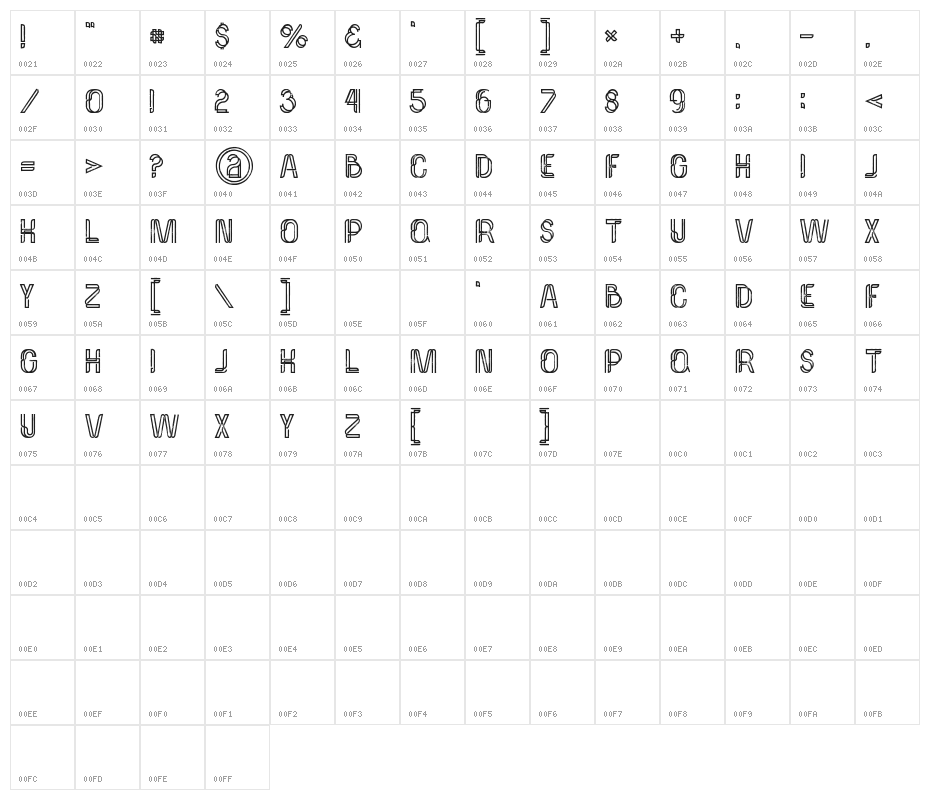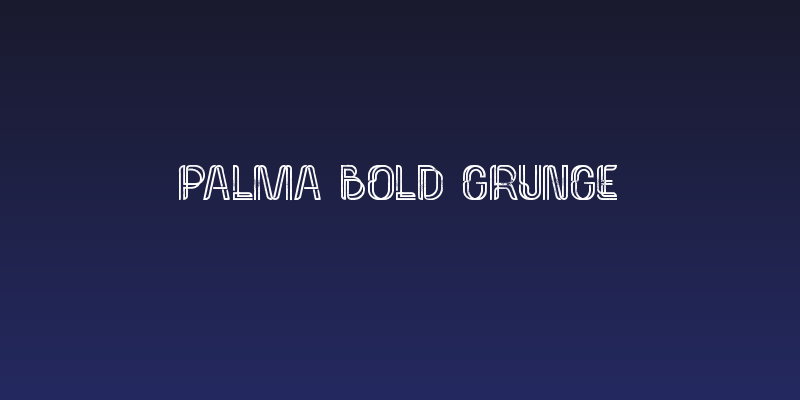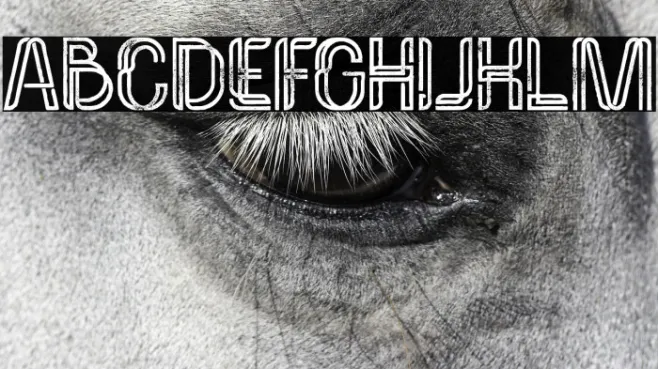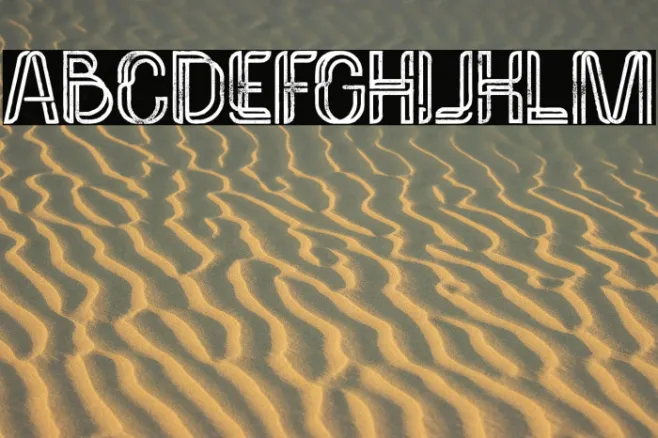
Palma Bold Grunge Font
Palma Bold Grunge Description
This font features a bold, grunge style with a distressed appearance, giving it a rugged and edgy look. The characters are outlined with a rough texture, creating a sense of depth and dimension. The uppercase and lowercase letters maintain a consistent design, with each character exhibiting unique imperfections that add to the overall aesthetic. The numerals and special characters follow the same design principles, ensuring a cohesive look across all elements. This font is ideal for projects that require a bold statement or a vintage, worn-out feel.
| Overall Style | Grunge, Vintage |
| Proposed Projects | Ideal for album covers, posters, branding for edgy or alternative products, and any design needing a vintage or distressed look. |